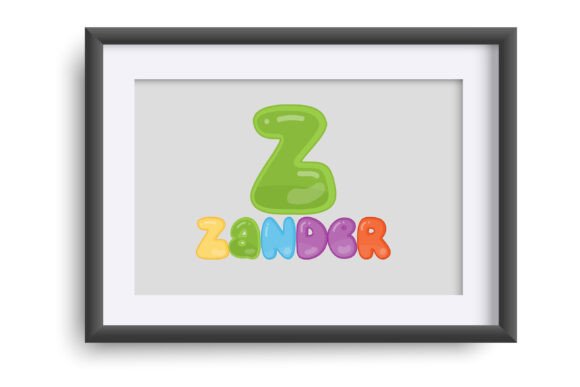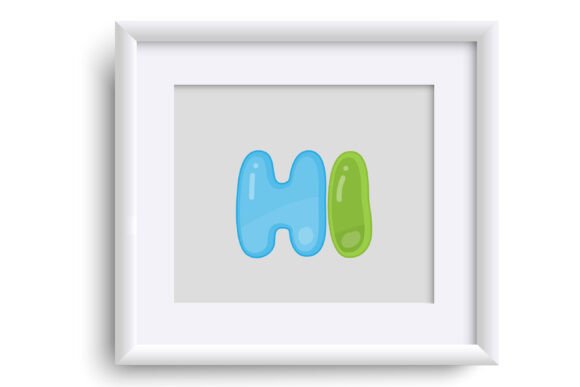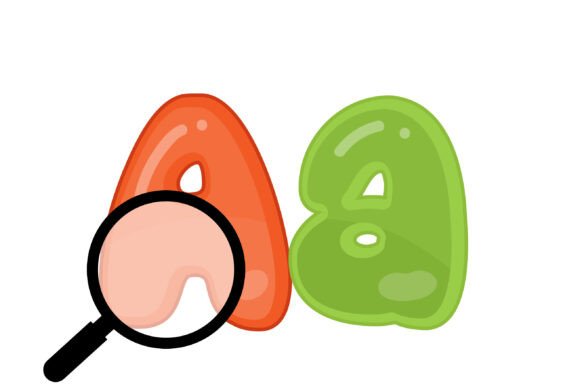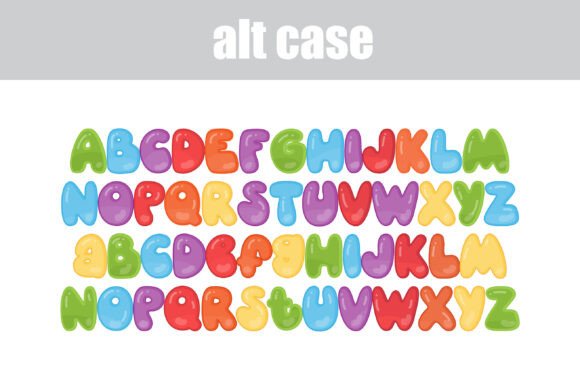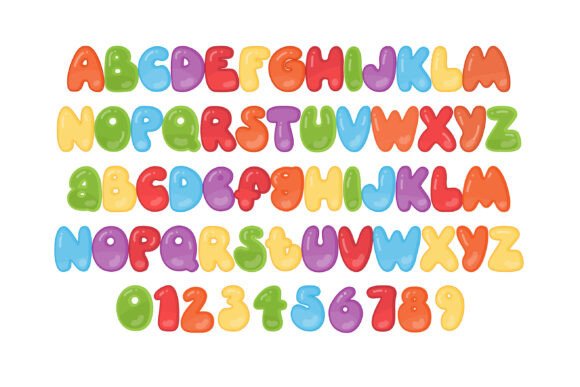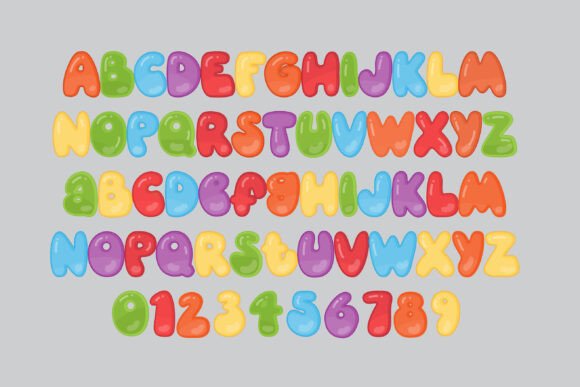
Introduction to Rainbow Jello Font
Have you ever been working on a design project and suddenly, a burst of creativity hits you? You envision a vibrant, whimsical text that captures the essence of your creative vision. For designers, finding the perfect design resource can make all the difference in bringing a project to life. This is where the Rainbow Jello Font comes in – a full-color font that features chubby, jelly-like lettering in a stunning rainbow color palette.
This delightful font is not just a pretty face; it’s a valuable addition to any designer’s toolkit. With its transparent background and high-quality design, the Rainbow Jello Font is perfect for adding a touch of personality to your creative projects. Whether you’re working on a logo, social media graphics, or a free download, this font is sure to make your design stand out.
Key Features of Rainbow Jello Font
- Unique, colorful design with a playful and whimsical feel, perfect for creative projects.
- Perfect for adding a pop of color and fun to various design projects, from digital art to print materials.
Honest Review: Rainbow Jello Font
I recently came across the Rainbow Jello Font, and I have to say it’s a fun addition to any design project. The free download is perfect for creative projects where you want to add a bit of whimsy and personality.
The font itself is a high-quality design resource, available in a range of colors and styles. It’s great for titles, headings, and other design elements where you want to make a statement.
- Available in various colors and styles
- Perfect for creative projects and titles/headings
- ⚠️ Limited versatility for body text or long passages
- ⚠️ May not be suitable for formal or professional designs
Overall, I’m impressed with the Rainbow Jello Font. It’s a fun and creative design resource that can add a lot of personality to your projects. While it may not be suitable for every design situation, it’s a great addition to any design library.
With a transparent background, it’s easy to integrate into your designs and make the most of its unique style.
The Rainbow Jello Font is a free download perfect for creative projects requiring a high-quality, eye-catching design resource. This font features a transparent background, making it ideal for overlaying on images or using as a standalone element.
Tips for Getting the Most Out of Rainbow Jello Font
Experiment with layering the font over different backgrounds to create unique visual effects. Combine with other design elements, such as shapes and icons, to add depth and interest to your design.
The Rainbow Jello Font is perfect for social media graphics, blog posts, and other digital content requiring a playful, attention-grabbing design element. Use it to add a pop of color and whimsy to your creative projects.